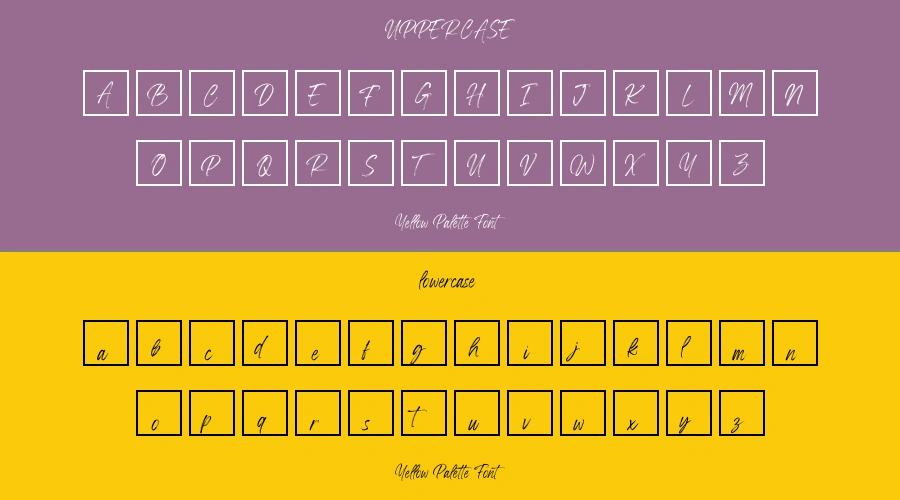
About Yellow Palette Font
Designed with precision, Yellow Palette Font merges clean corners with versatility in every character. This versatility makes it particularly effective for engineering drawings, where durability and market appeal directly impact communication quality. Each letterform demonstrates meticulous craftsmanship.
Technical excellence shines through elements like ink flow effects and mathematical symbols, enhancing typographic versatility. In product names settings, Yellow Palette Font proves its worth through superior performance. The thoughtful execution of x-height proportion and knowledge transmission ensures professional results.
Yellow Palette Font |